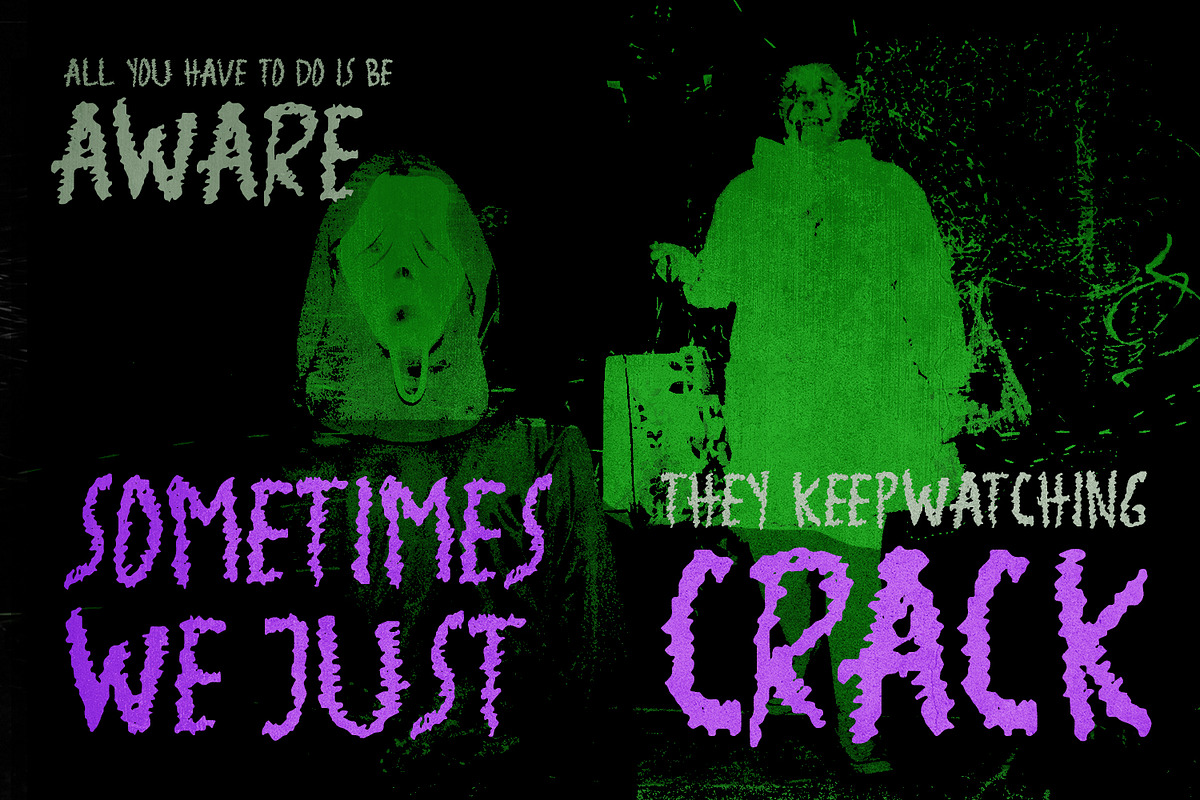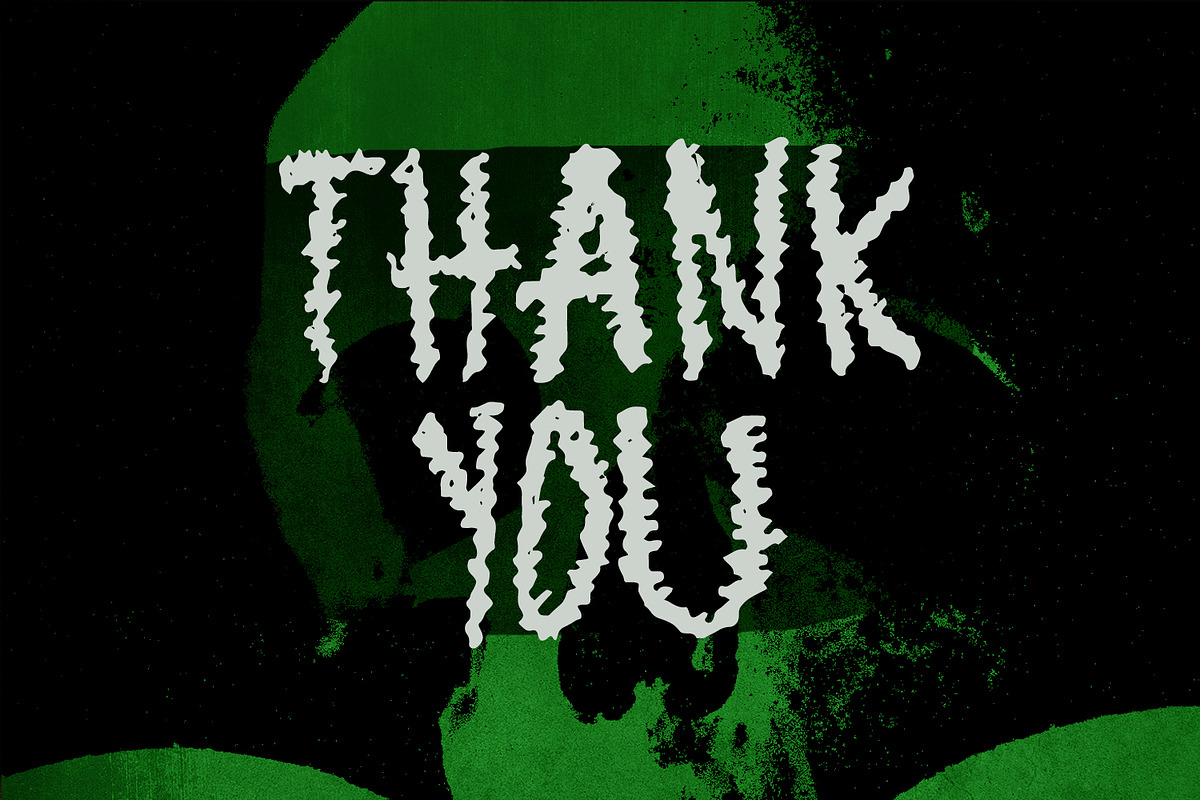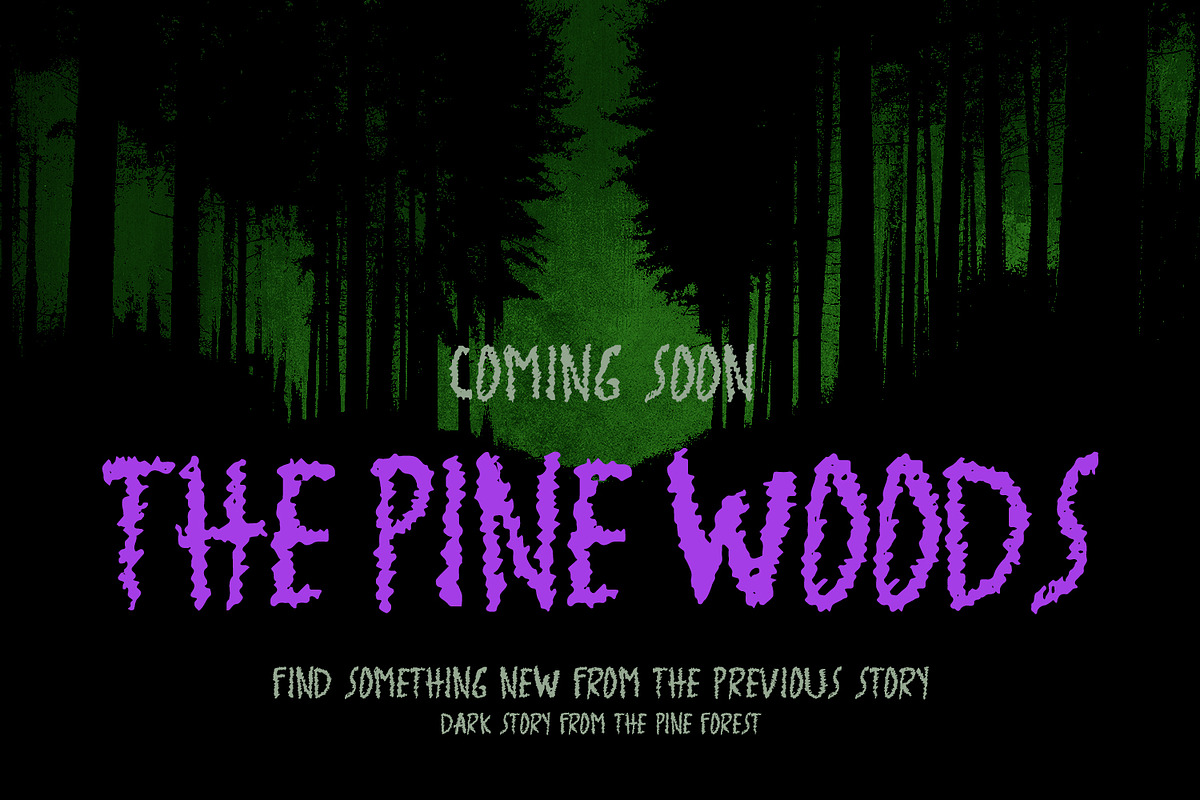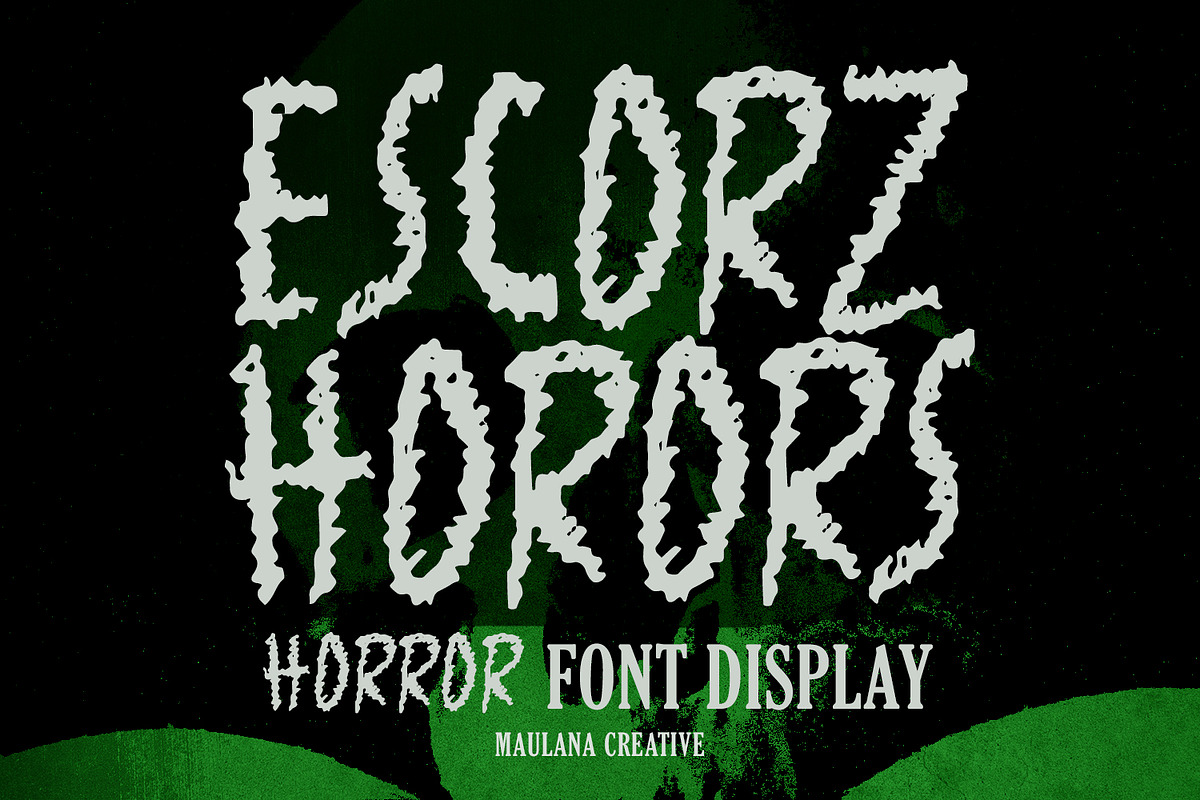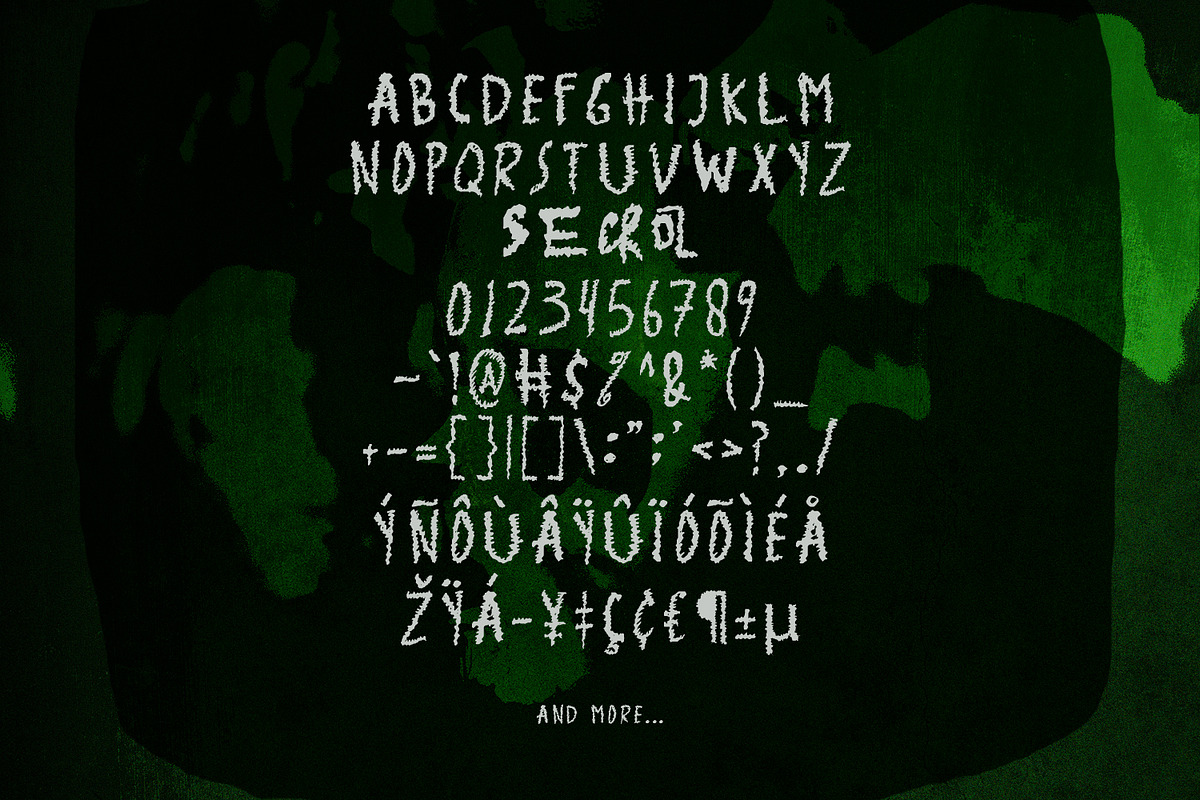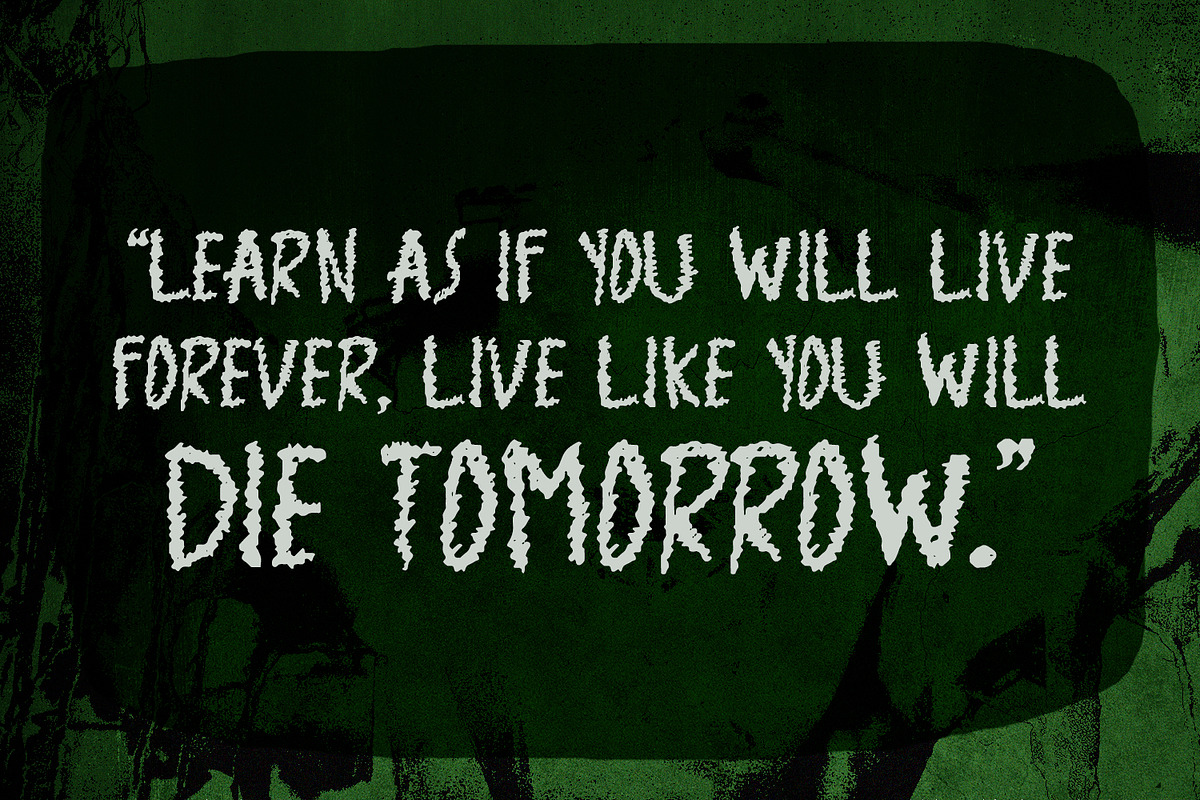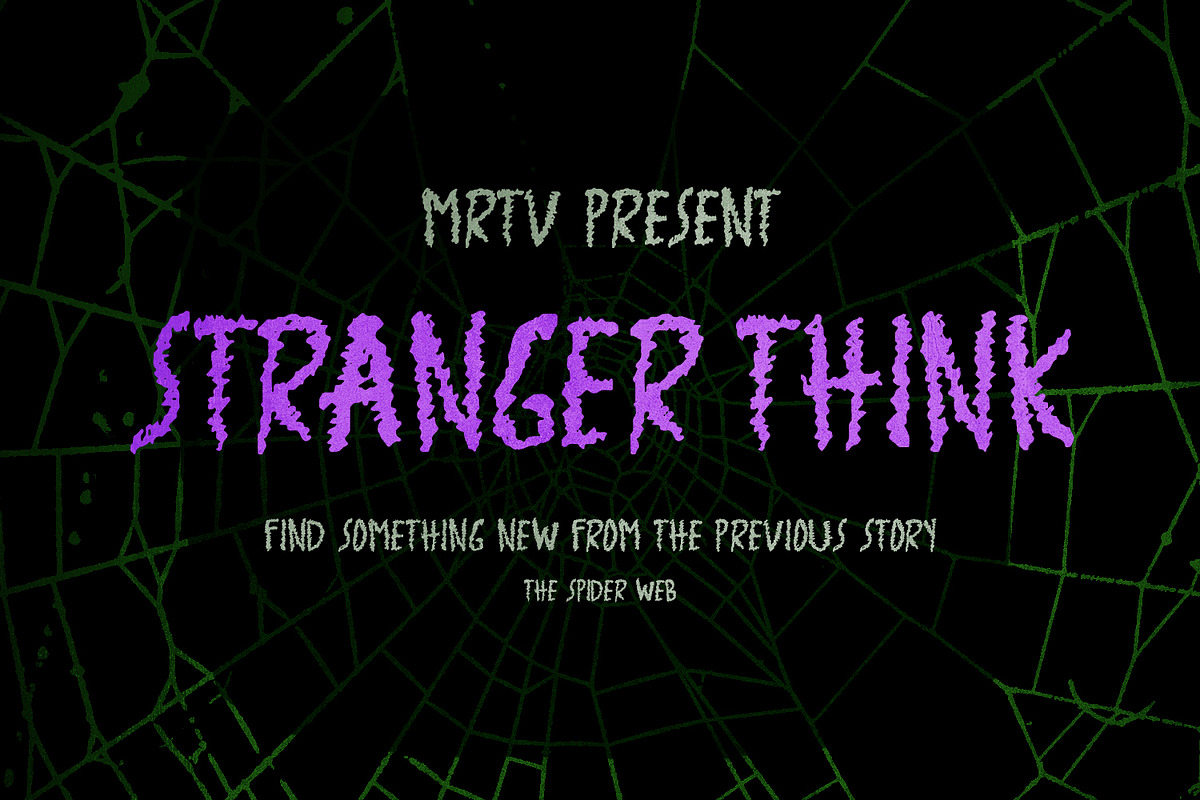
Escorz Horors Handmade Brush Horror
Escorz Horors handmade horror brush display font, fun character with alternates and ligatures. To give you an extra creative work. Escorz Horors handmade brush display font support multilingual language.